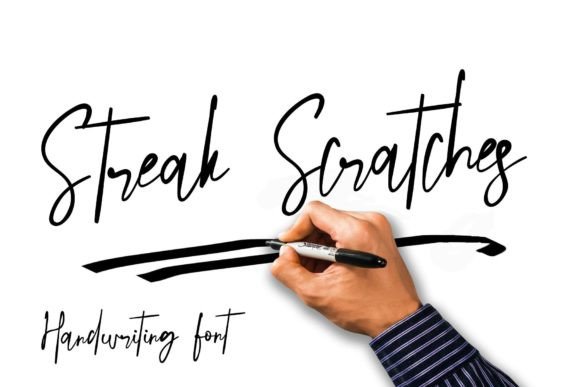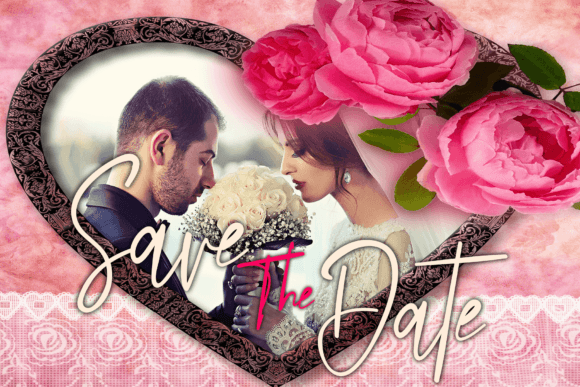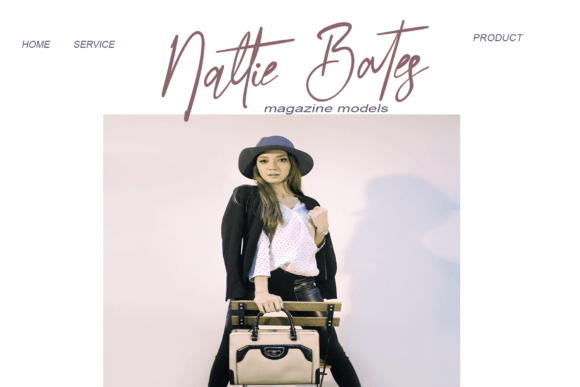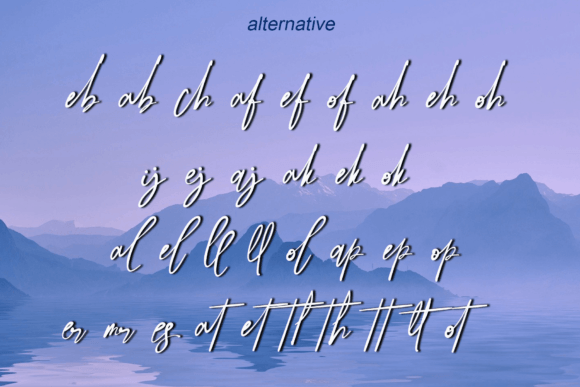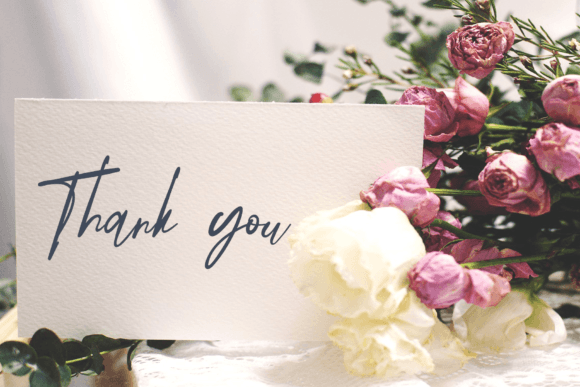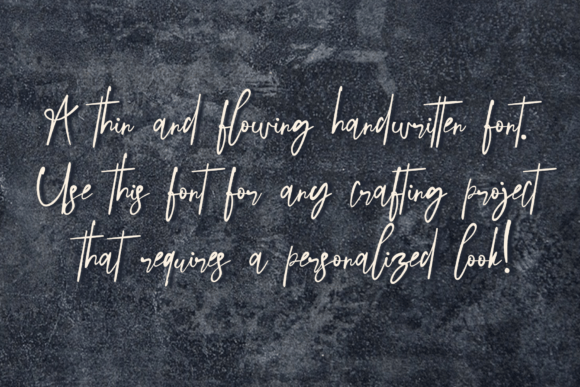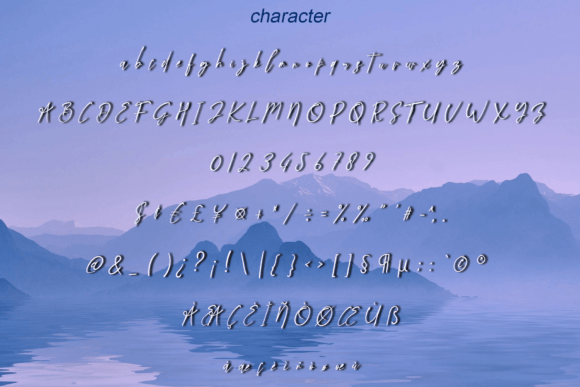
Streak Scratches Font
About Streak Scratches Font
Streak Scratches is not your ordinary font; it’s a quirky and handwritten gem, adding a touch of whimsy and character to your projects. Crafted with the spontaneity of hand-writing, it effortlessly brings out the natural and distinctive characteristics that set your design apart. This font is a versatile choice, finding its perfect fit in websites, SVG designs, home decor, branding, blogs, logos, invitations, and beyond.
The charm of Streak Scratches lies in its quirkiness, giving your projects a unique and playful edge. The handwritten style brings an authentic touch, as if each letter has been carefully penned by hand, infusing a sense of personality into your designs.
The beauty of this font extends beyond its appearance, thanks to being PUA encoded. This feature opens the door to a world of amazing glyphs and ligatures, providing you with easy access to a plethora of design possibilities. Streak Scratches becomes more than a font; it becomes a tool for customization, allowing you to tailor your designs with ease.
Imagine Streak Scratches adorning your website with its playful strokes, or lending a touch of character to your home decor projects. The versatility of this font shines through in branding, adding a quirky element to your logo, blog, or any other creative endeavor. Its handwritten charm creates invitations that feel personal and engaging.
In summary, Streak Scratches is a font that transcends traditional boundaries. Its quirkiness, paired with PUA encoding, makes it an invaluable asset for designers seeking a playful and customizable typeface. Let Streak Scratches be the expressive brush that adds character to your digital and tangible creations.